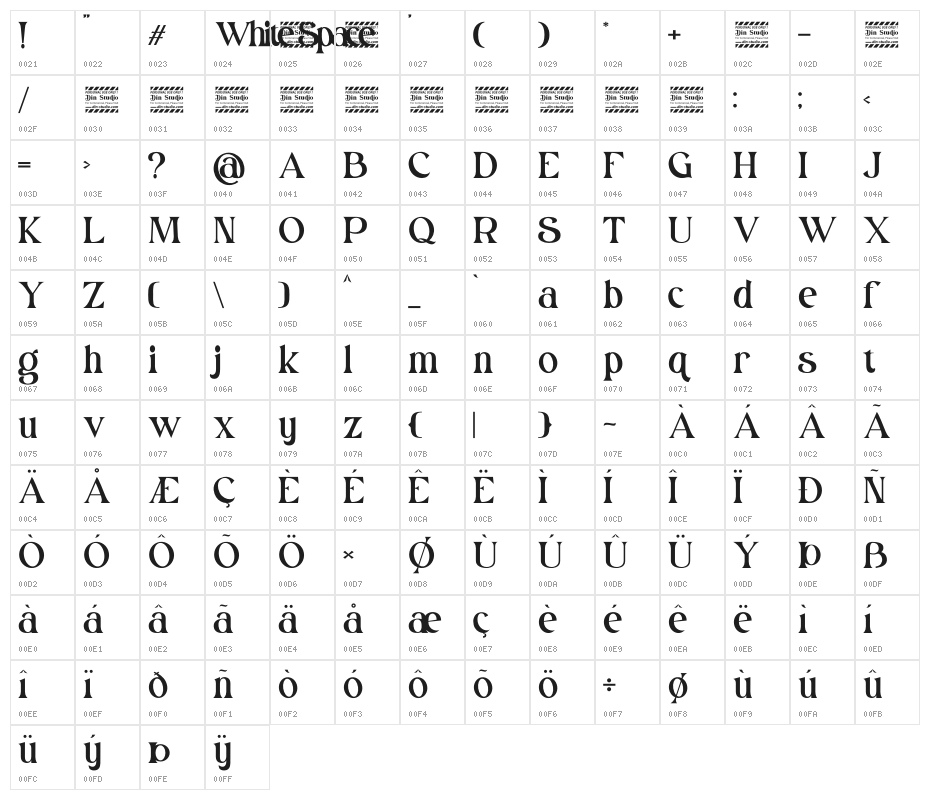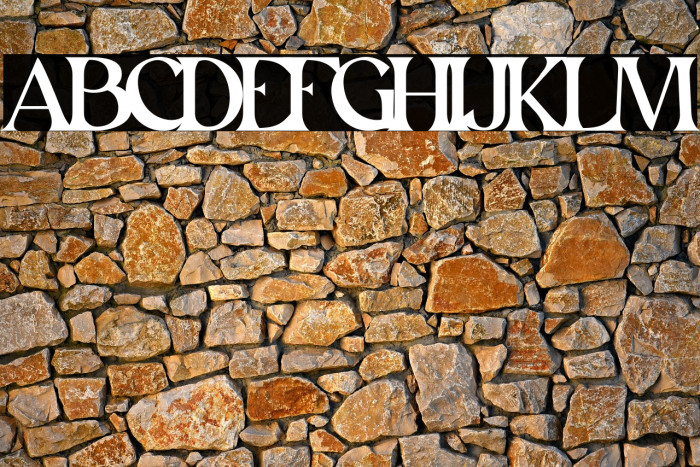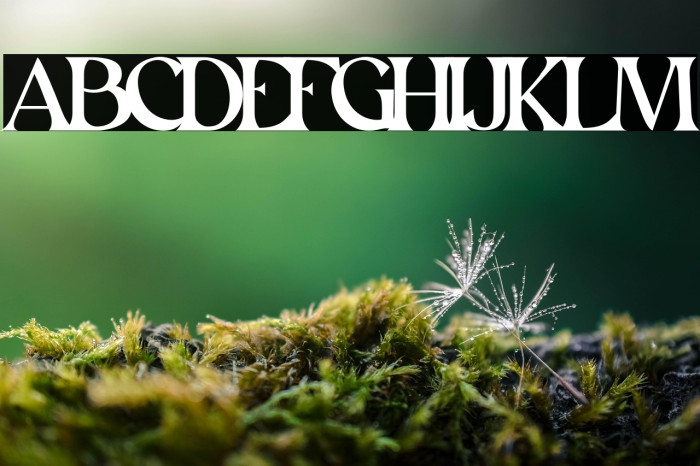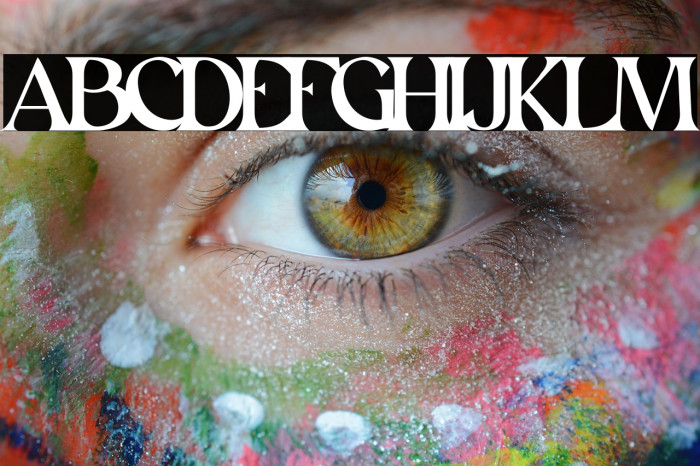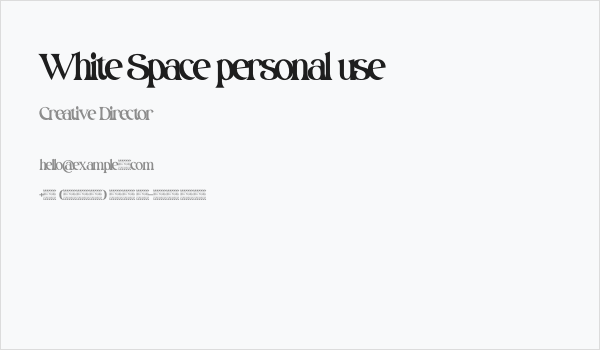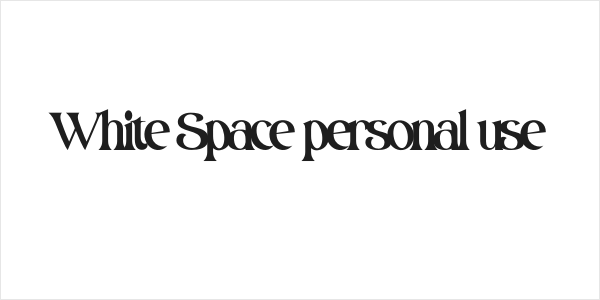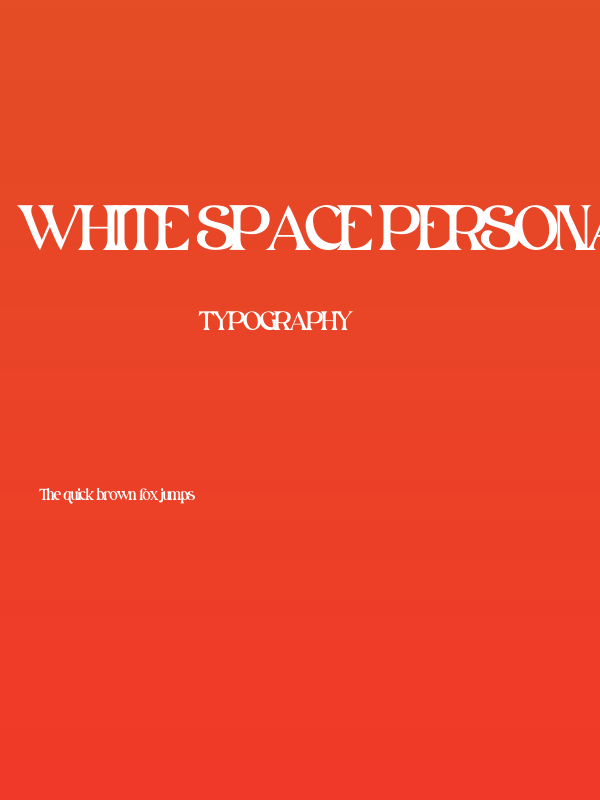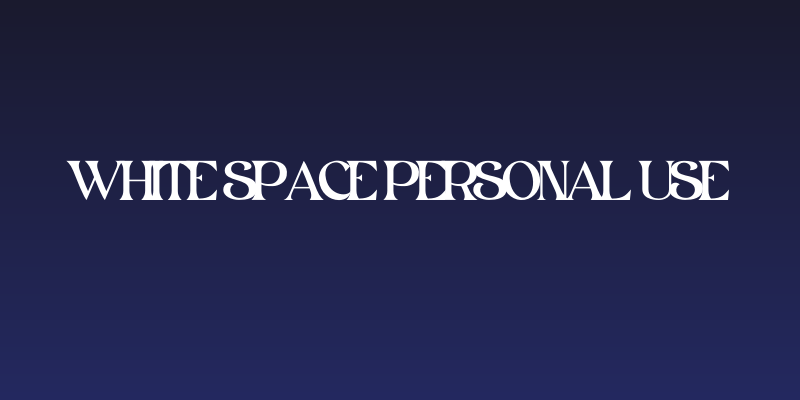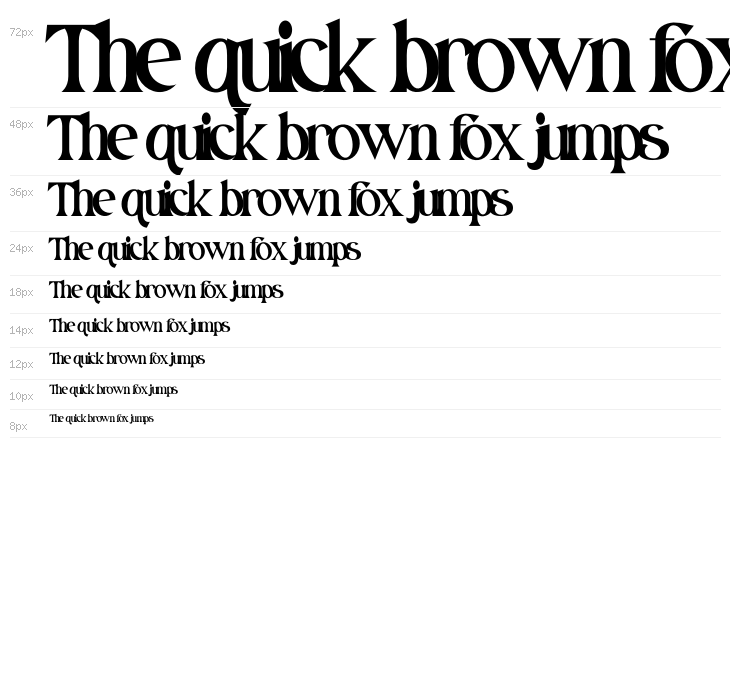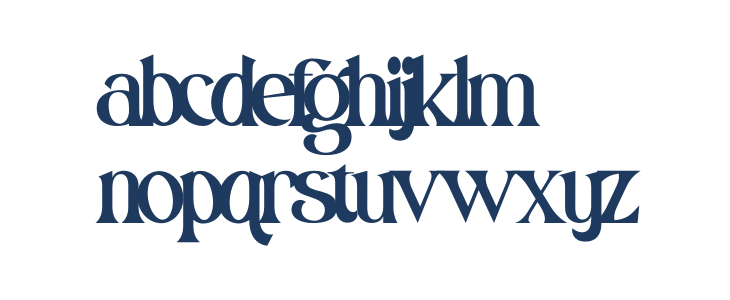
White Space personal use Font
White Space personal use Description
This font features a bold and striking design with high contrast between thick and thin strokes, giving it a dramatic and elegant appearance. The characters have a unique, artistic flair with exaggerated serifs and curves that create a sense of movement and fluidity. The uppercase letters are particularly bold, while the lowercase letters maintain a consistent style with slightly more subtle curves. The numbers and special characters are designed to match the overall aesthetic, ensuring a cohesive look across all text. This font's distinctive style makes it ideal for making a statement in any design project.